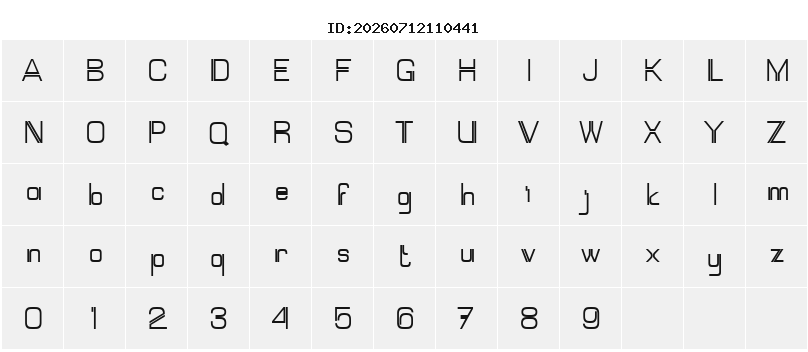
• Font Name: Mallary
• Full Font Name: Mallary
• Manufacturer: Toto
• Description: Based on Mallary from page 43 of Dan Solo's Moderne Alphabets. - Toto Kyusi, Pilipinas toto@ispx.com.ph September 11, 2011
Mallary.ttf is a modern, elegant sans-serif font designed for ultimate readability and visual harmony. Perfect for branding, headlines, web design, and print materials.